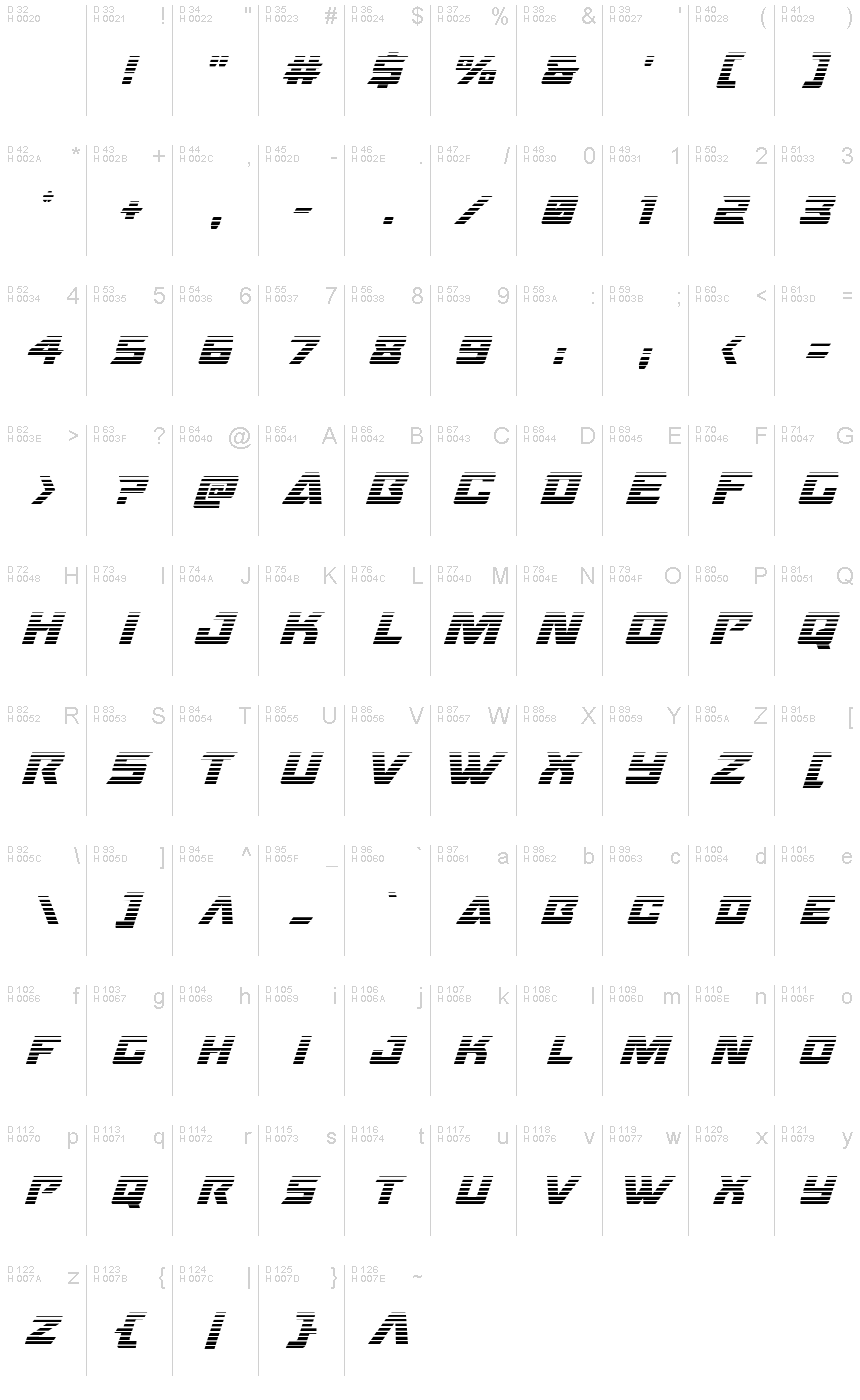
Oceanic Drift Gradient Italic
Oceanic Drift is a striking, futuristic display font that commands attention. Its bold, expanded letterforms exude a sense of grandeur and technological sophistication.
The dynamic gradient effect, reminiscent of ocean currents, lends the font a captivating depth and movement. Oceanic Drift's bold, futuristic aesthetic makes it an excellent choice for headings, logos, and other high-impact design elements. Its versatility allows it to shine in a variety of contexts, from sci-fi-inspired branding to cutting-edge editorial layouts.
Designed by Daniel Zadorozny, this font masterfully blends innovation and visual allure, offering designers a powerful tool to create compelling, forward-thinking designs.